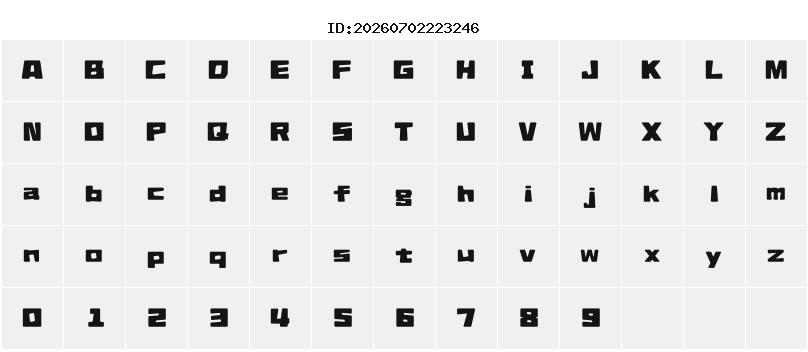
287-上首方印体 Preview
• Font Name: 287-上首方印体
• Font ID: 287-SSFangYinTi:Version 6.00
• Full Font Name: 287-上首方印体
• Version: Version 6.00 October 30, 2023
• PostScript Name: 287-SSFangYinTi
• Character Count: 7569
• Manufacturer: 上首造字
About 287-上首方印体.ttf
287-上首方印体.ttf is a modern, elegant sans-serif font designed for ultimate readability and visual harmony. Perfect for branding, headlines, web design, and print materials.